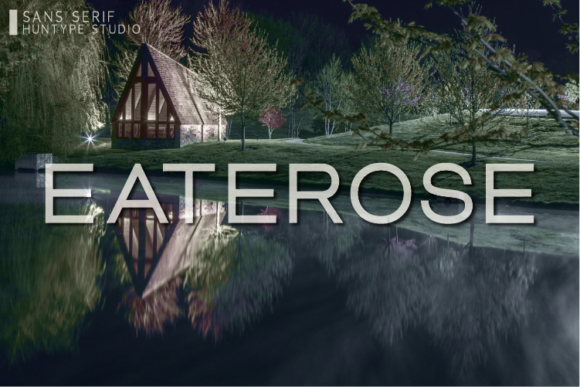
Eaterose Font
Step into a world of visual elegance with Eaterose, the modern sans serif font that will transform your designs into captivating masterpieces. Its carefully crafted balance of smooth curves and sharp edges strikes a chord of sophistication that is sure to leave a lasting impression.
With Eaterose, you'll discover a font that is both versatile and timeless. Its clean lines and minimalist aesthetic make it a perfect fit for a wide range of projects, from sleek website designs to eye-catching marketing materials. Whether you're creating a logo, a brochure, or an online advertisement, Eaterose will elevate your work with a touch of modern refinement.
Immerse yourself in the beauty of Eaterose and unleash your creative potential. This font is a gateway to a world of endless possibilities, where your ideas take center stage and captivate your audience. Its versatility extends beyond traditional design boundaries, making it an ideal choice for motion graphics, animations, and digital art.
As a creation of Huntype, a renowned font foundry, Eaterose embodies the highest standards of quality and craftsmanship. Its meticulous attention to detail ensures that every character is a work of art, designed to enhance the visual impact of your projects.
Don't settle for ordinary fonts that blend into the background. Embrace the power of Eaterose and watch your designs blossom into something truly extraordinary. Its unique combination of elegance and modernity will elevate your work to new heights, leaving a lasting impression on all who encounter it.